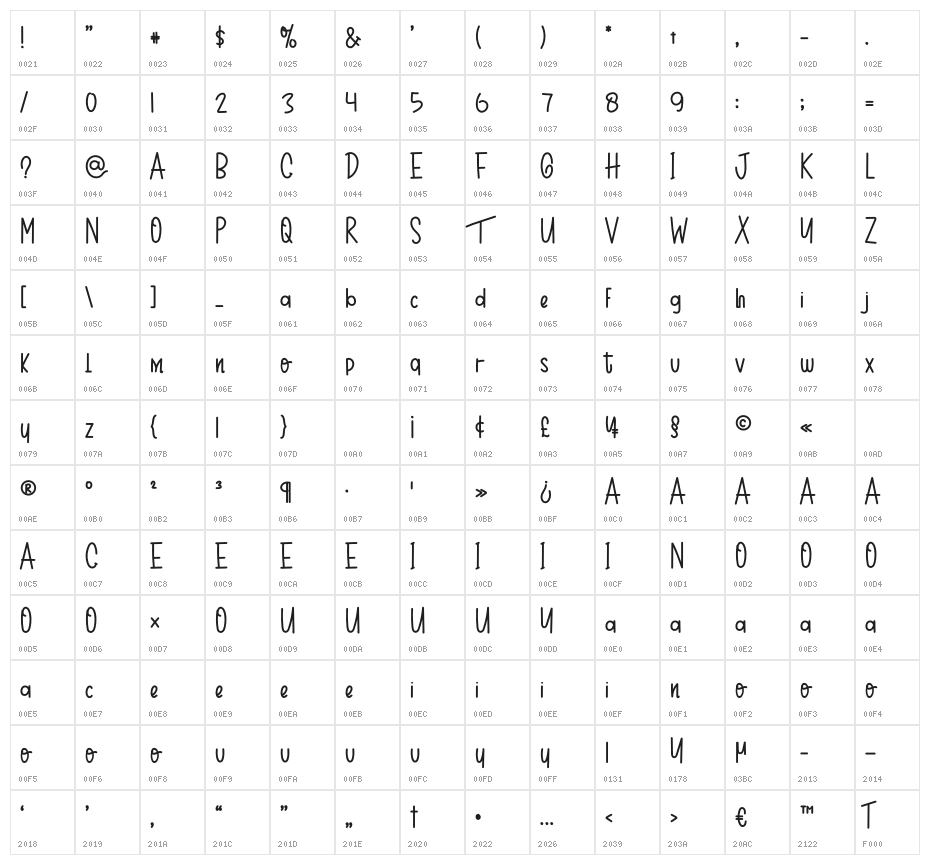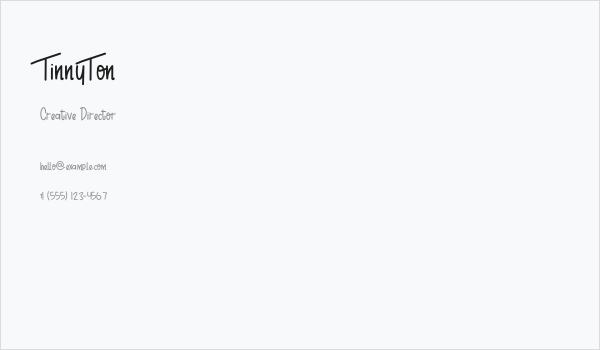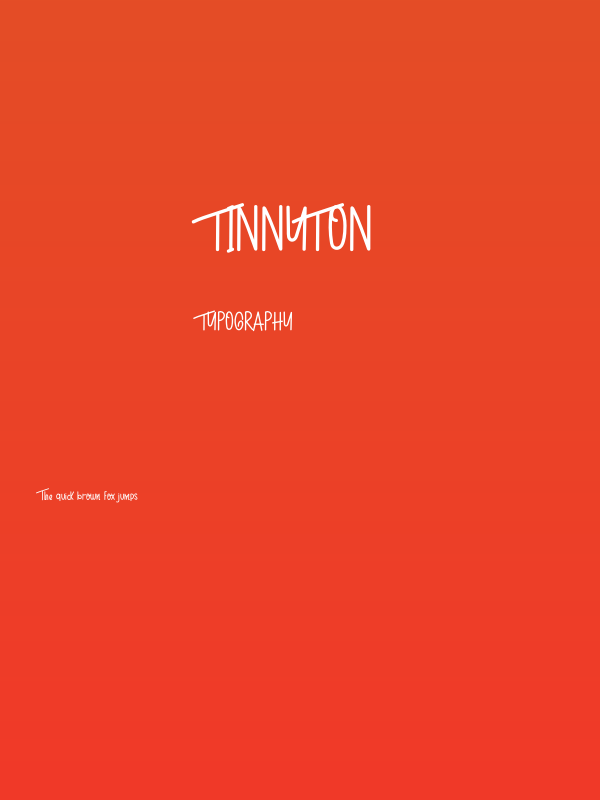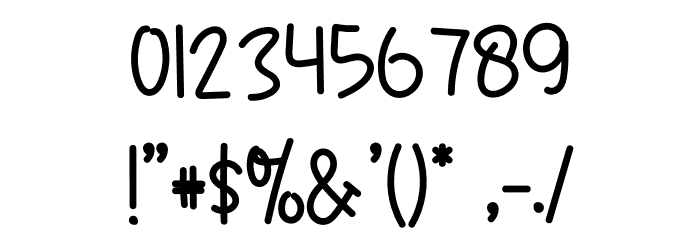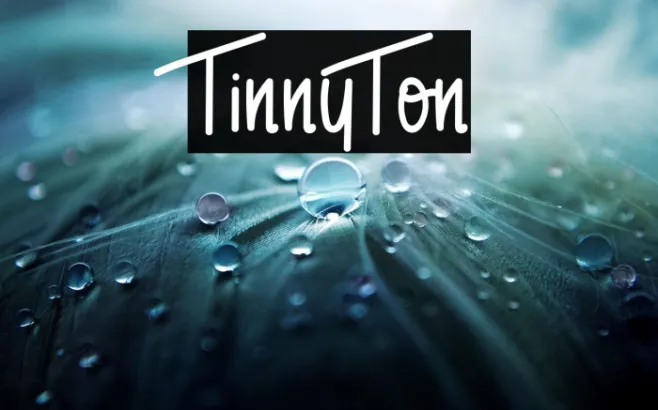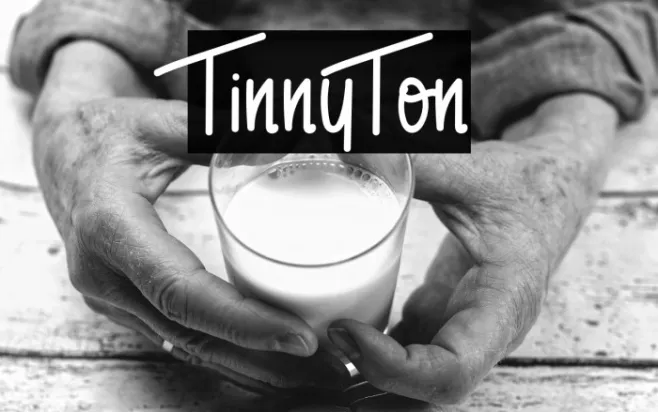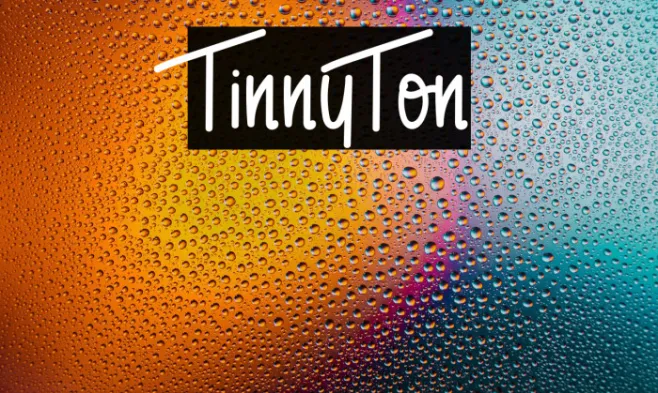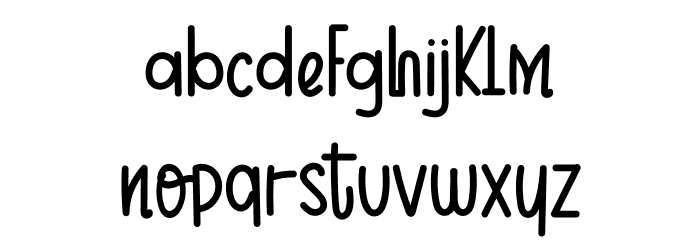
TinnyTon Font
TinnyTon Description
This playful and whimsical font features tall, narrow letters with a hand-drawn aesthetic. The uppercase characters are bold and slightly irregular, giving a casual and friendly appearance. The lowercase letters maintain a consistent style, with some characters like 'g' and 'j' having distinctive loops. Numbers are clear and easy to read, while the special characters add a touch of fun with their quirky shapes. Overall, this font exudes a youthful and energetic vibe, making it ideal for projects that require a touch of personality and creativity.